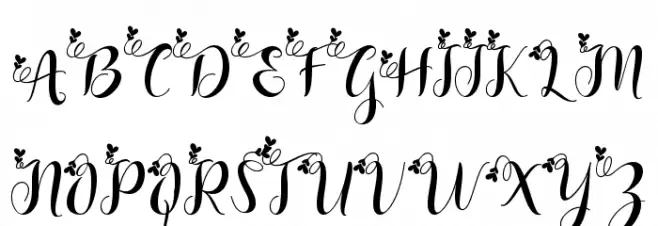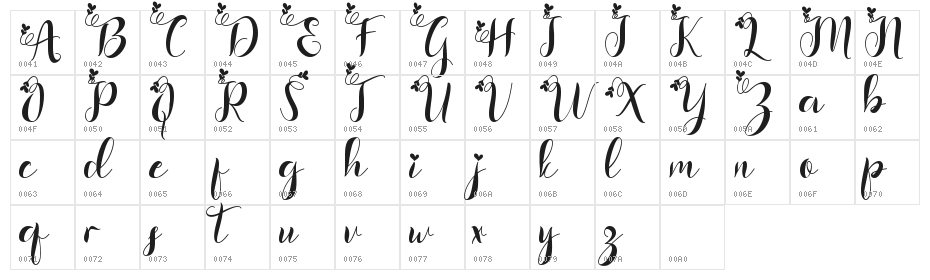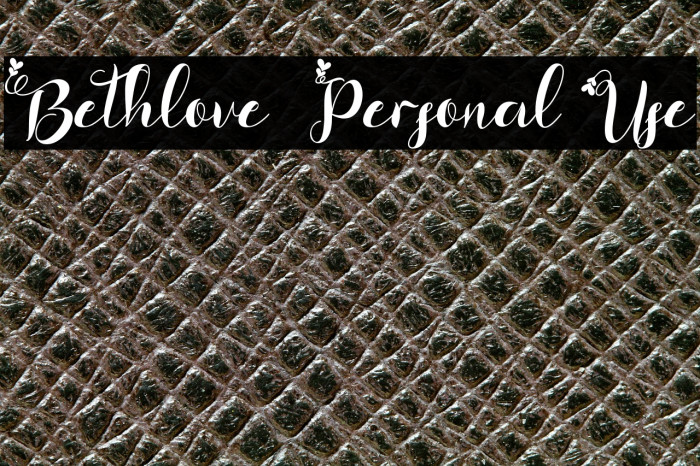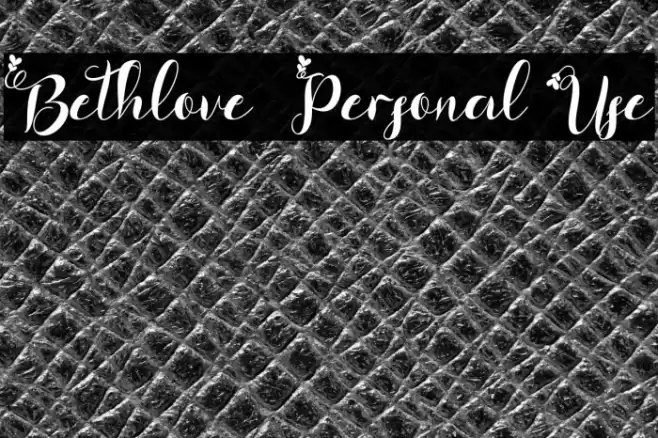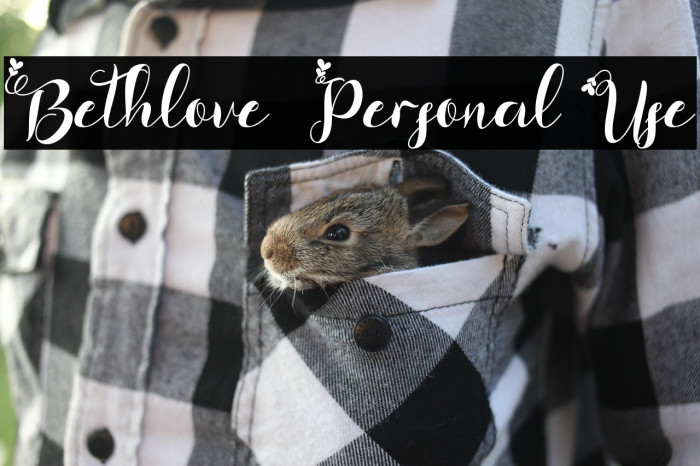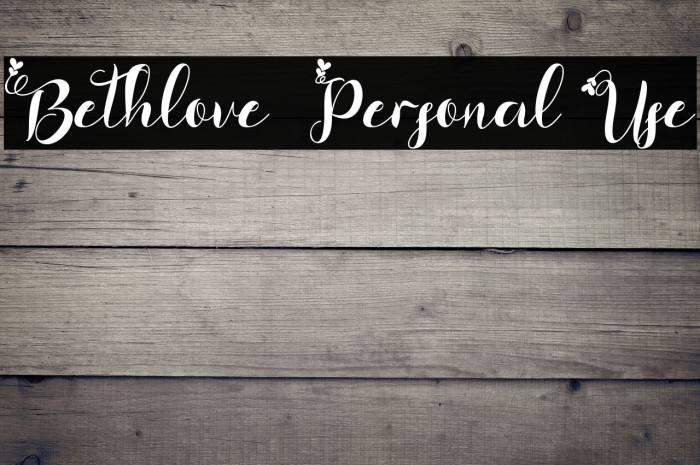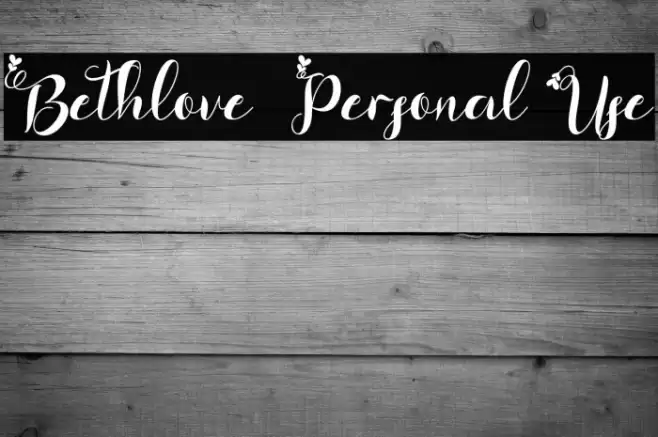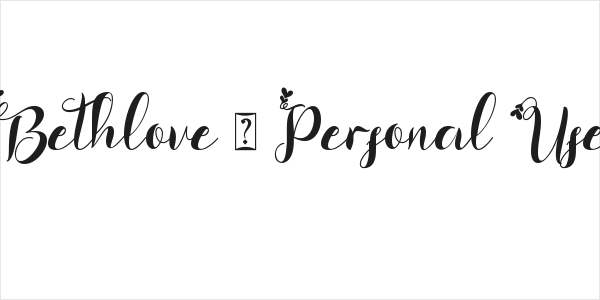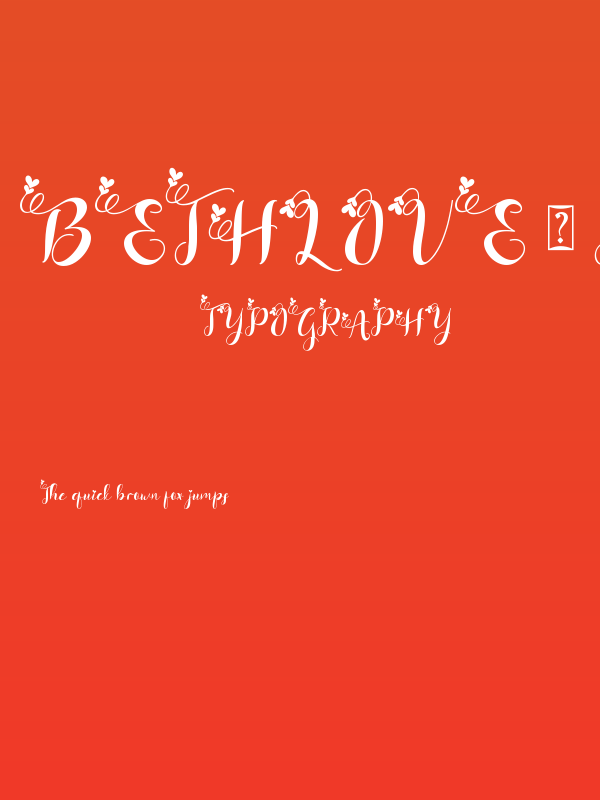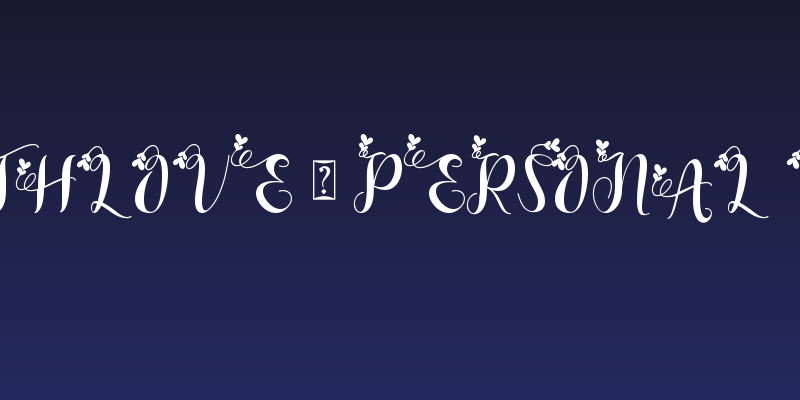
Bethlove - Personal Use Font
Bethlove - Personal Use Description
This font features an elegant and decorative script style, characterized by its flowing, cursive letterforms adorned with delicate floral embellishments. The uppercase letters are particularly ornate, with each character featuring a unique flourish that adds a whimsical touch. The lowercase letters maintain a consistent style, with smooth curves and a graceful appearance. The numerals and special characters are designed to match the overall aesthetic, ensuring a cohesive look. This font's intricate details and artistic flair make it suitable for creative and expressive design projects.
| Proposed Projects | Ideal for wedding invitations, greeting cards, branding, and decorative projects. |